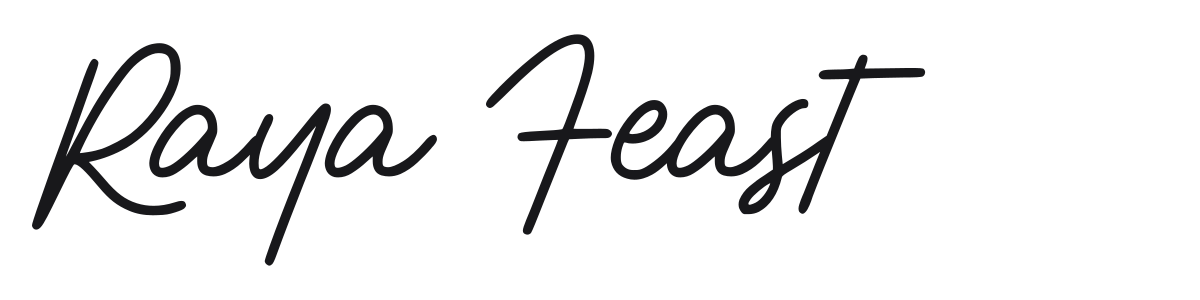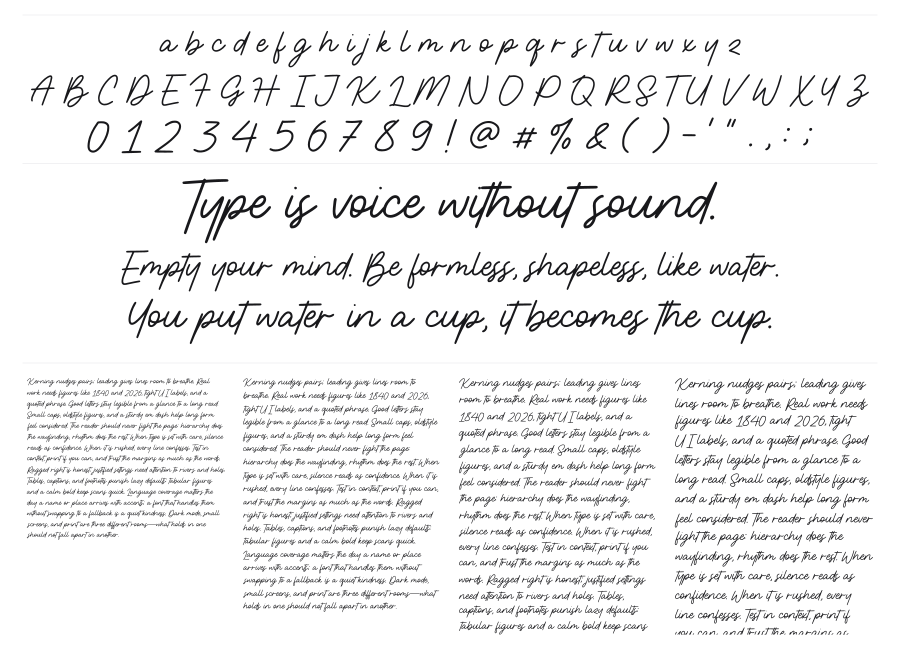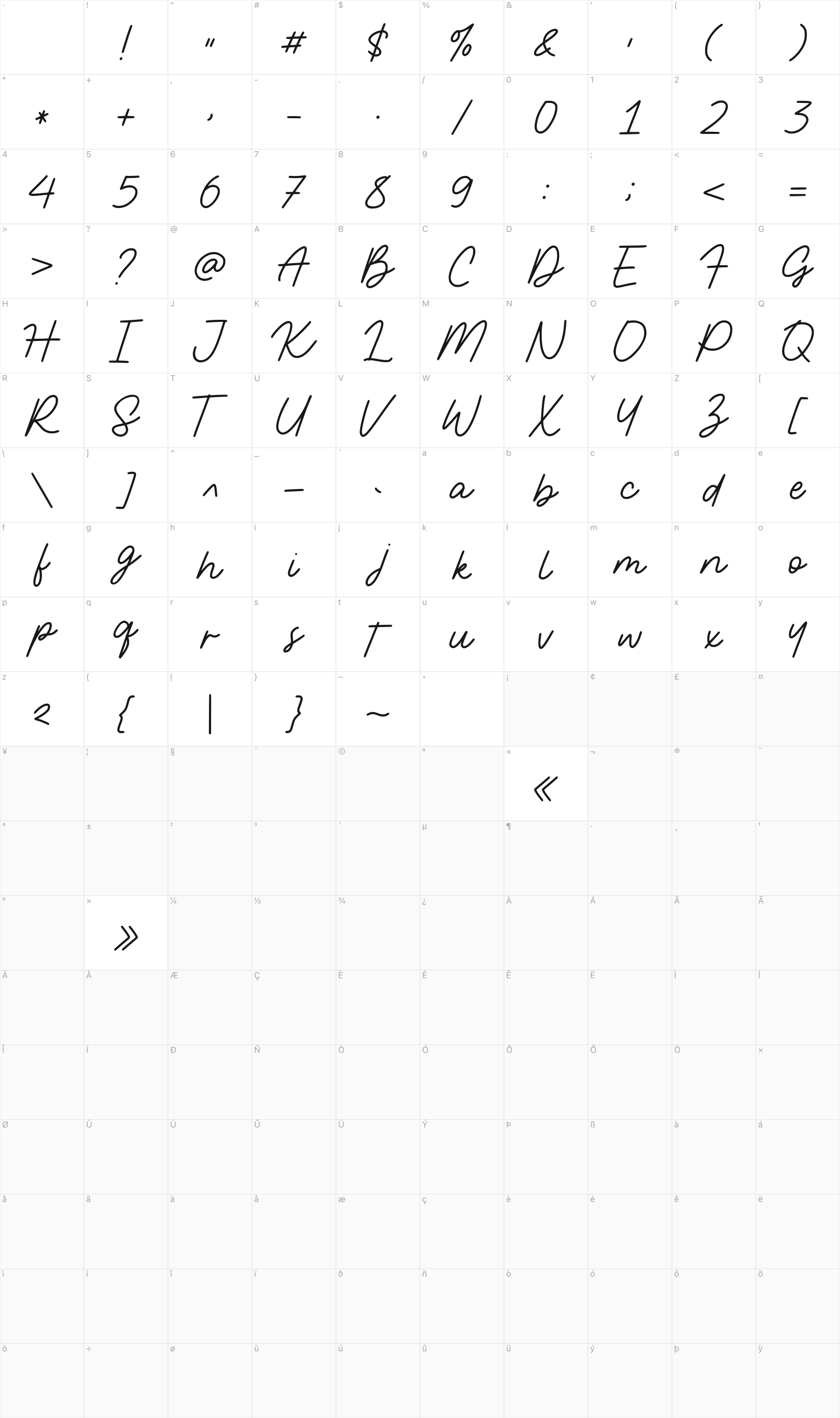
Raya Feast
Raya Feast is a flowing casual script with smooth connected strokes and generous looping ascenders that give it a relaxed, handwritten feel. The near-monoweight construction keeps it clean and readable at display sizes without feeling stiff. It sits naturally in branding, packaging, and social content aimed at lifestyle and artisan audiences.